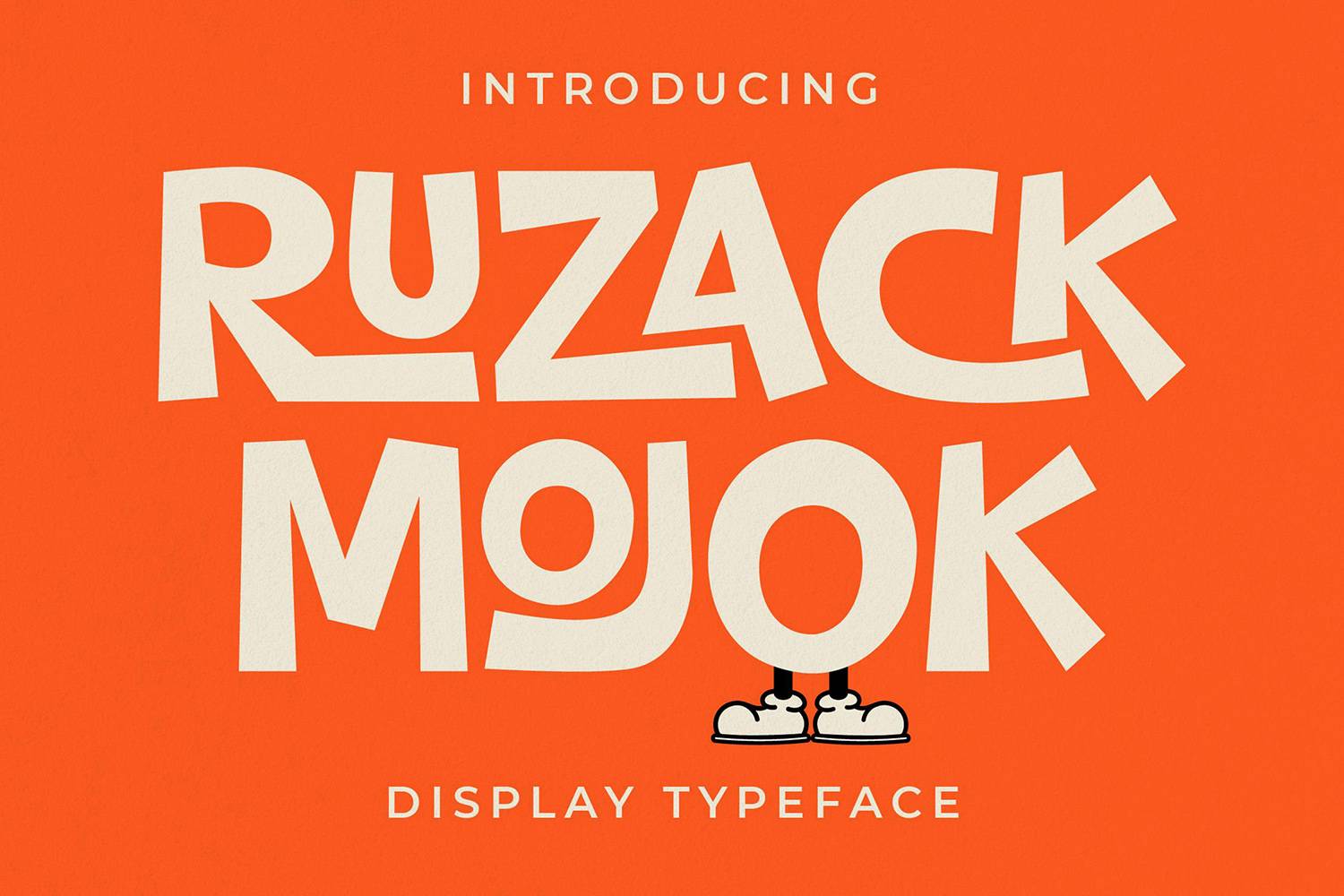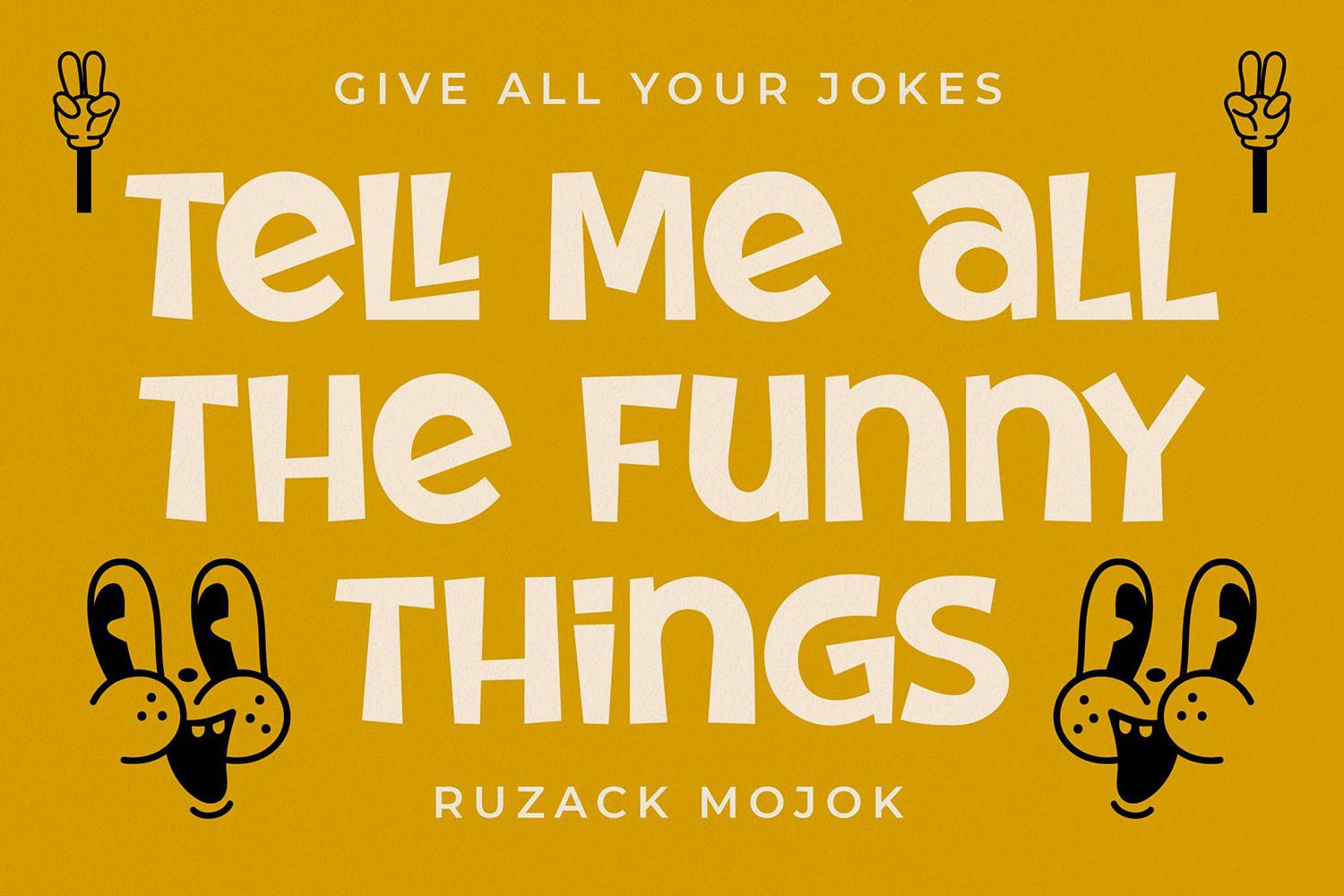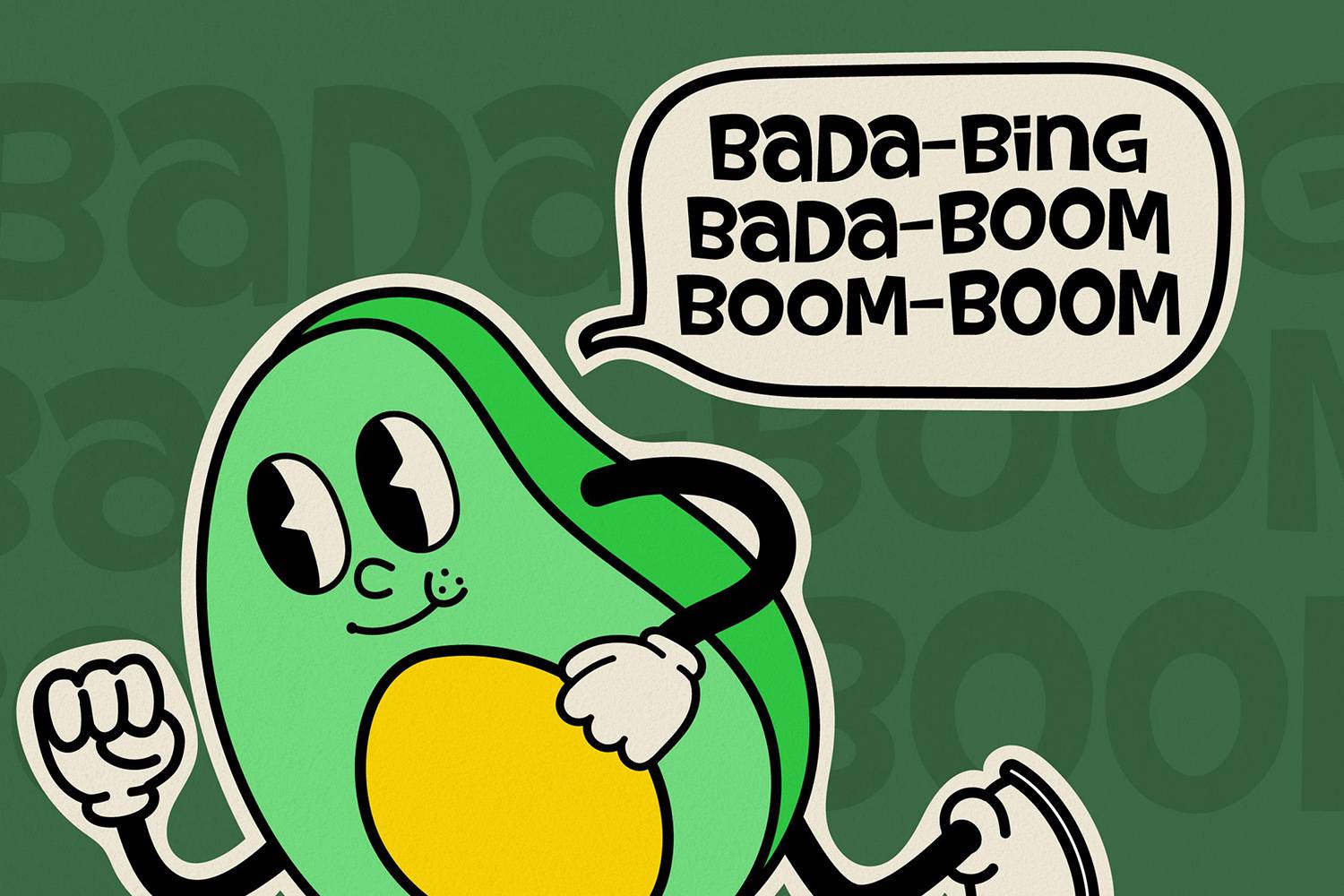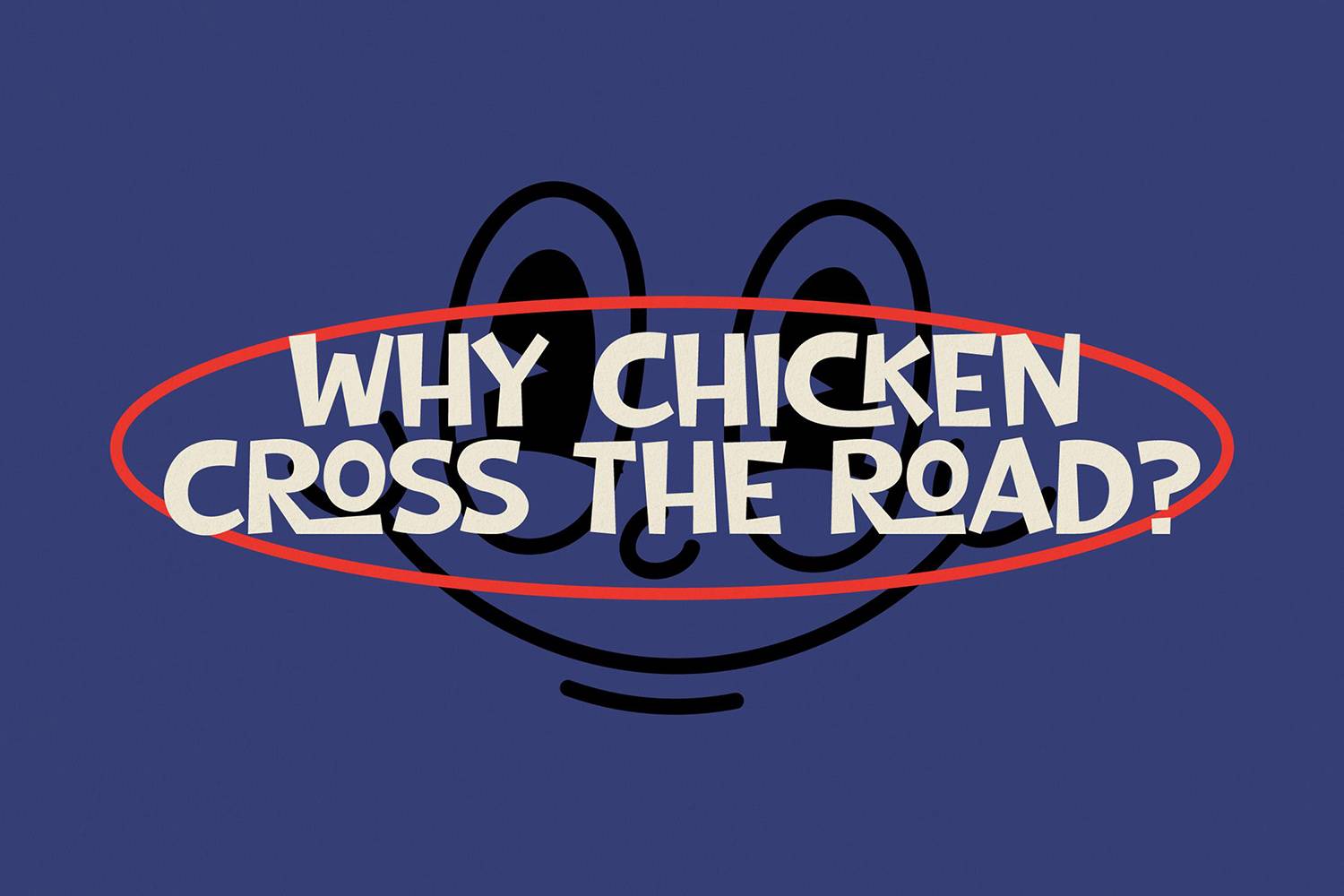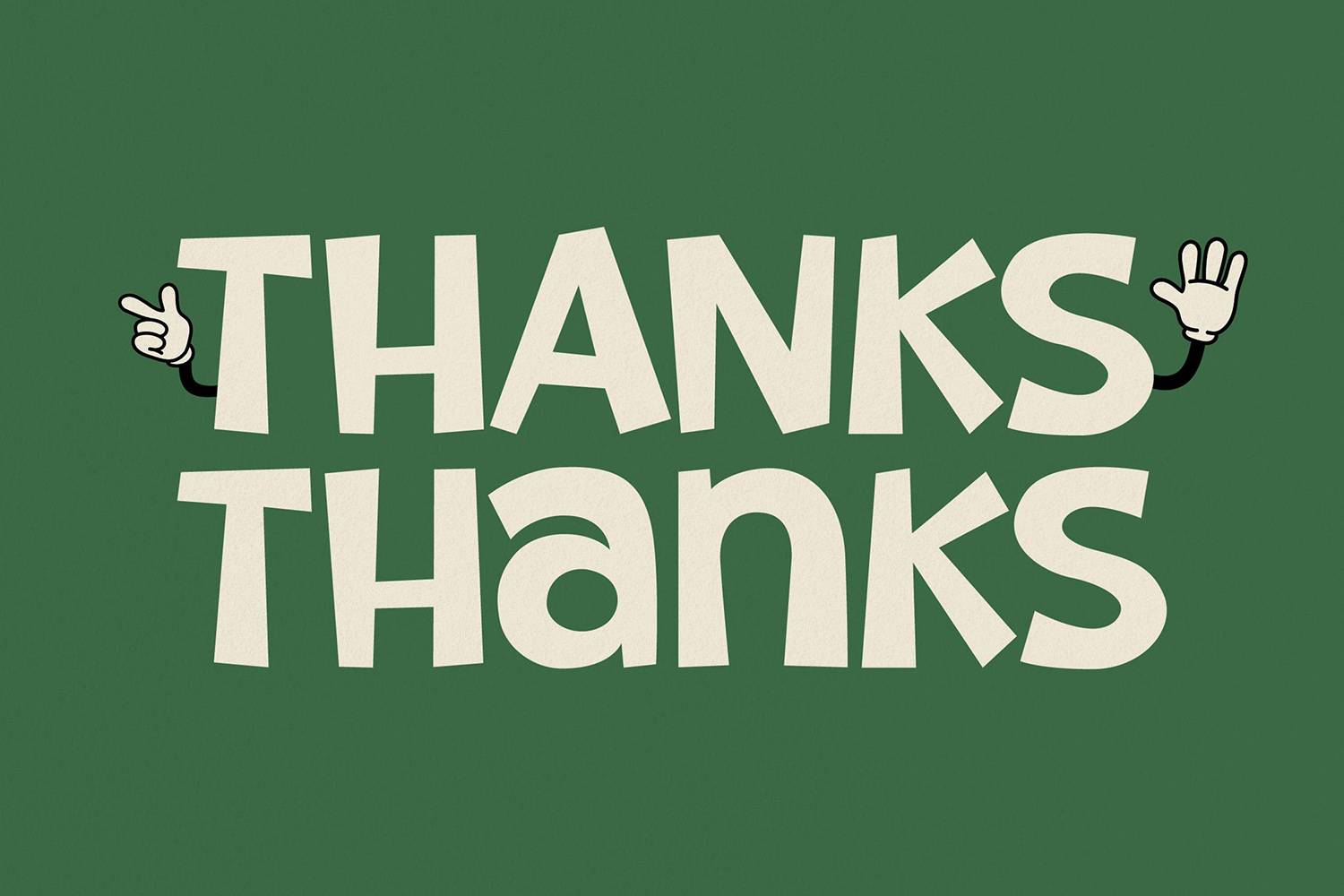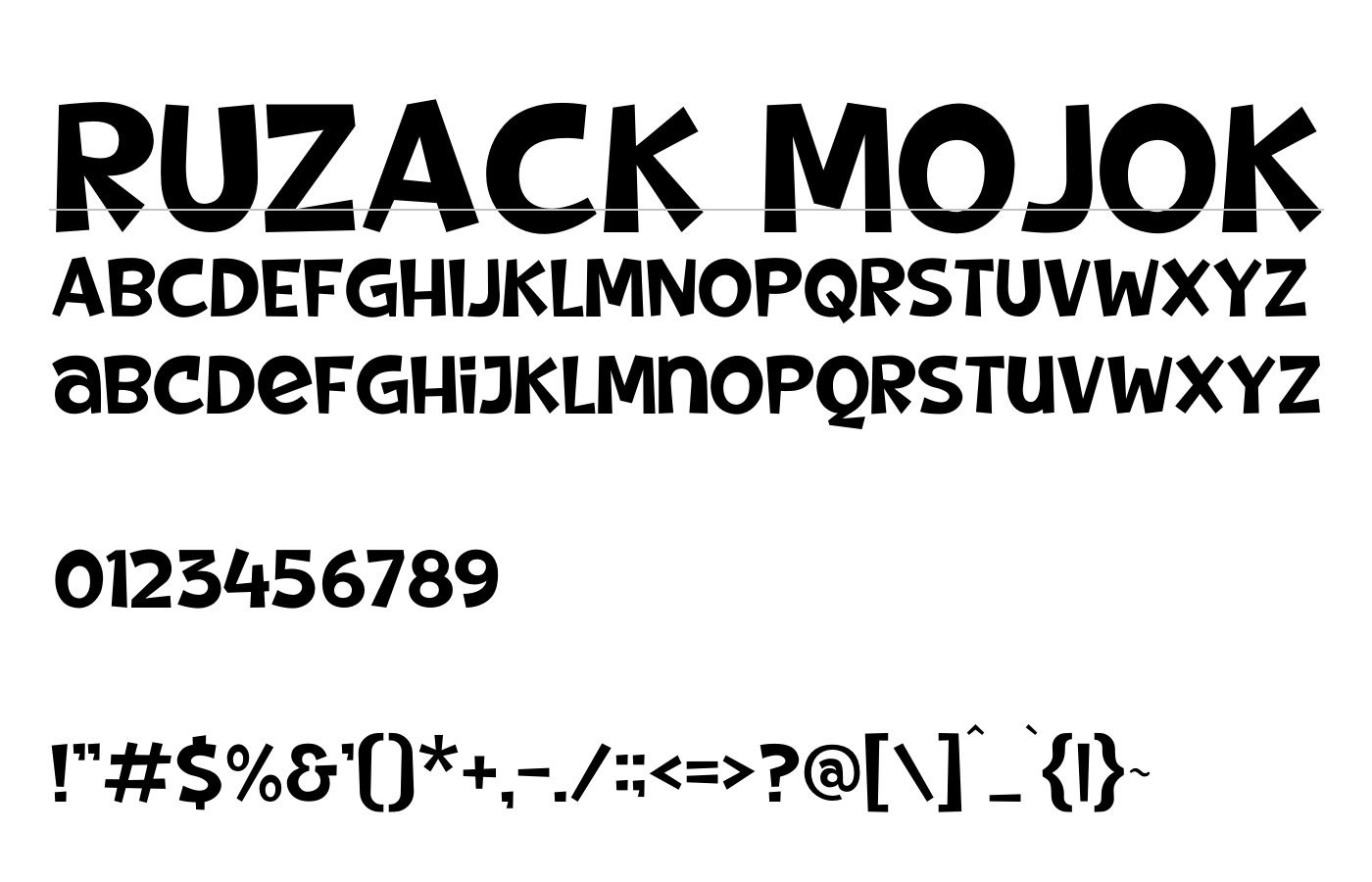
Ruzack Mojok is a bold, playful sans serif font with a quirky character and uneven, slightly tilted letterforms that create a lively, informal feel. Its strong weight and wide proportions make it stand out for headlines, logos, and creative projects looking to convey fun and personality. This font works well in children’s designs, posters, and branding that aims to be approachable and energetic.
Ruzack Mojok Font
About Ruzack Mojok Font